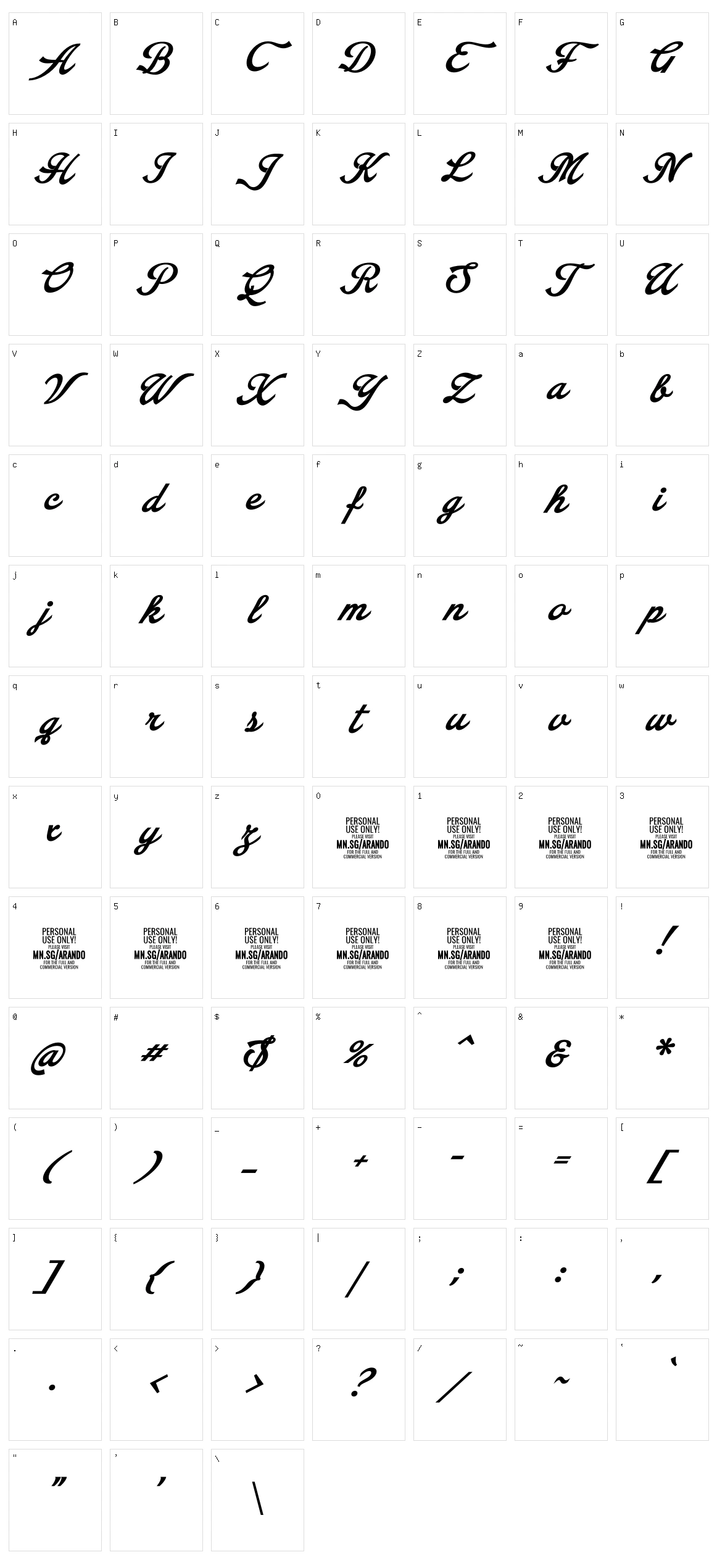
Arando Script is a retro script typeface.
A perfected calligraphy with uniquely beautiful letterforms, Arando Script is a professional quality handwriting font family.
Drawn and created by Mans Greback in 2022, it is perfect for a formal restaurant headline or feminine logotype design.
Arando Script is provided in four styles: Regular, Bold, Italic and Bold Italic, which compliment each other and maximise your options and design experience.
The font is built with advanced OpenType functionality and has a guaranteed top-notch quality, containing stylistic and contextual alternates, ligatures and more features; all to give you full control and customizability.
It contains all characters and symbols you'll ever need, including all punctuation and numbers.